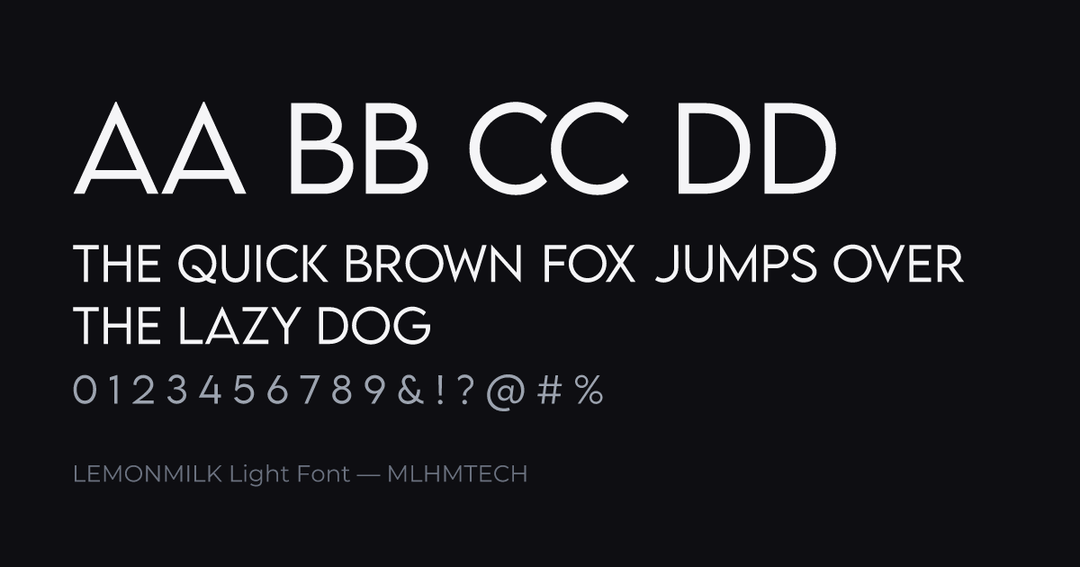
LEMONMILK Light Font
LEMONMILK Light is a sleek, geometric sans-serif font that adds a modern touch to any design. Ideal for logos, headlines, and branding projects.
LEMONMILK Light is a versatile sans-serif typeface with a clean, geometric structure. Its light weight and balanced proportions make it perfect for contemporary designs that require elegance and readability.
This font is ideal for creating eye-catching headlines, logos, and branding materials. Its minimalist style works well in both digital and print media, ensuring your text stands out with sophistication.